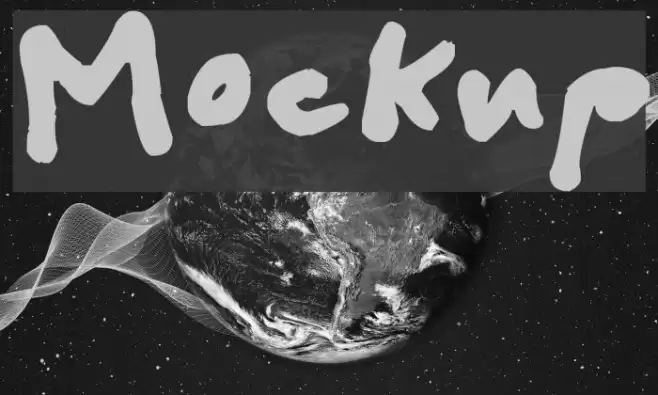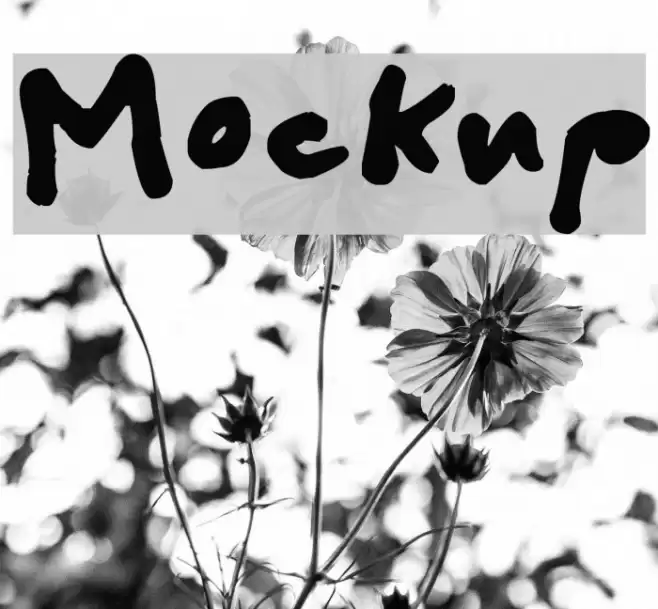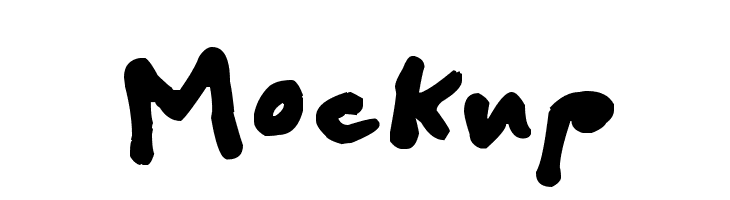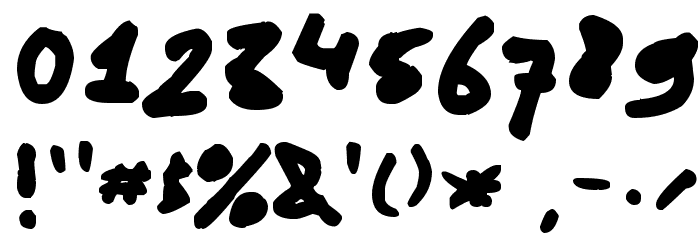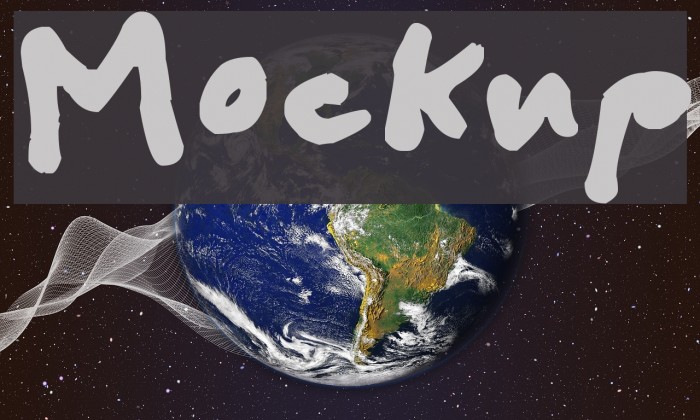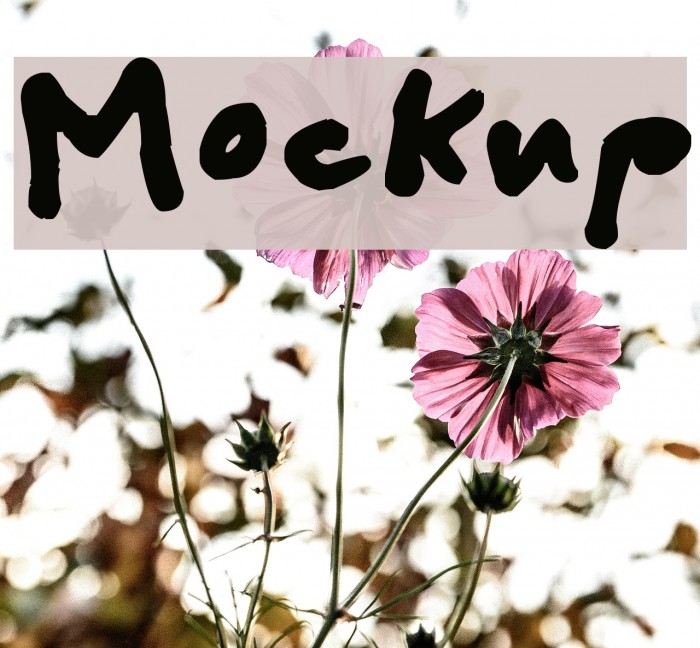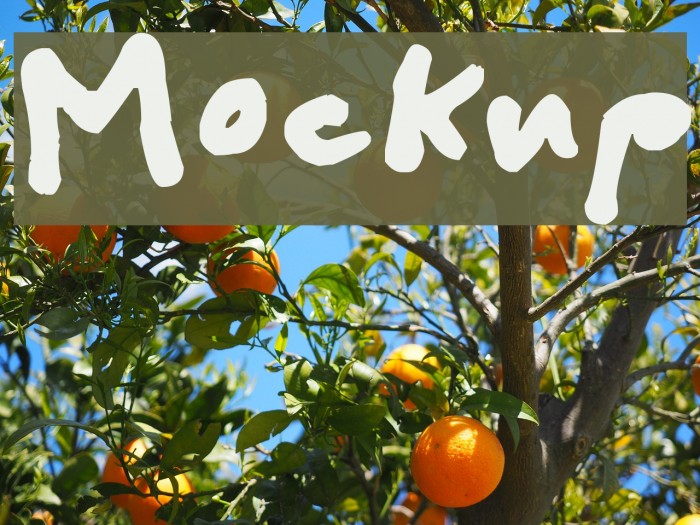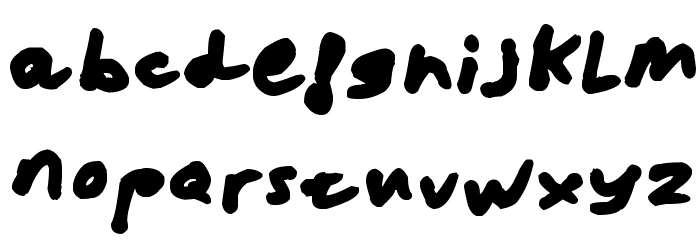
Mockup Font
Mockup Description
This font features a bold, handwritten style with a playful and informal appearance. The characters are thick and rounded, giving them a friendly and approachable look. The strokes are uneven, adding a sense of dynamism and energy. The uppercase and lowercase letters maintain a consistent style, with the lowercase letters slightly smaller and more compact. The numbers and special characters follow the same bold and lively design, making them easily readable. This font is perfect for projects that require a personal touch or a casual vibe.
A bold, playful handwritten font with a friendly and informal style from Uncategorized fonts.
- Proposed Projects: Ideal for greeting cards, children's books, playful branding, and casual invitations.
- Overall Style: Casual
- Use Case: Headlines, Logos, Invitations